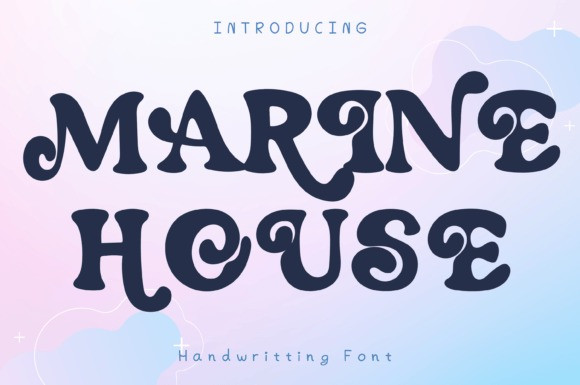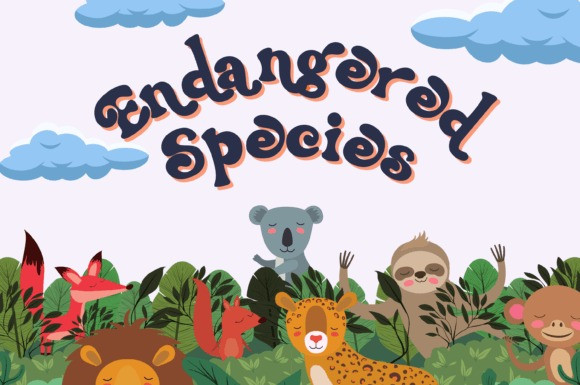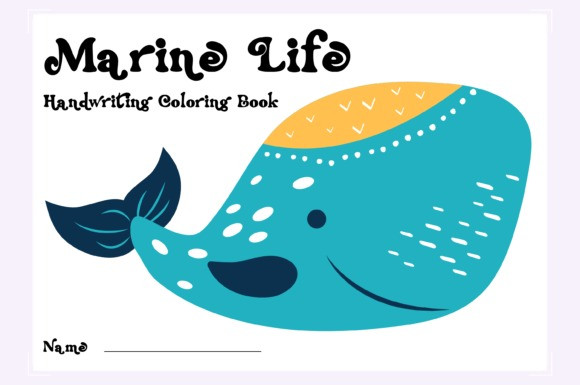
Marine House Font
Marine House is a whimsical and fun display font. It can easily be matched to an incredibly large set of projects, so add it to your creative ideas and notice how it makes them stand out!